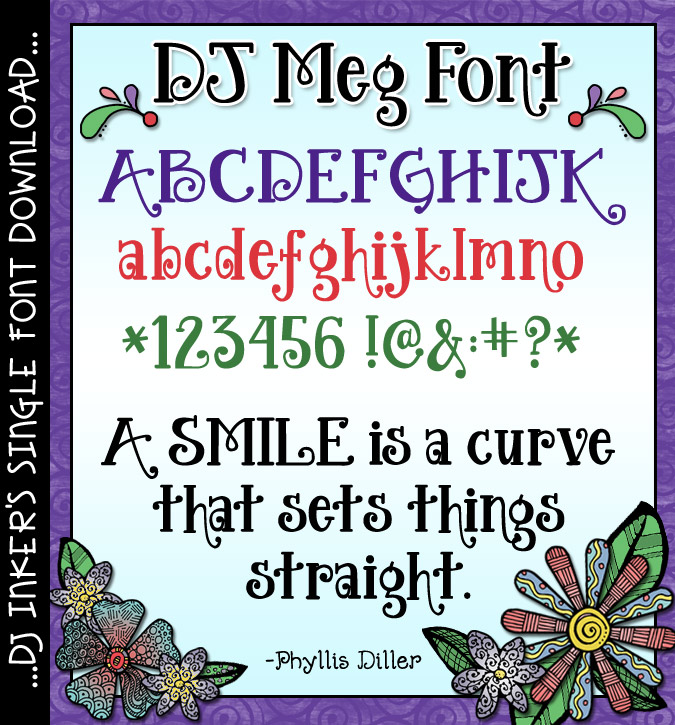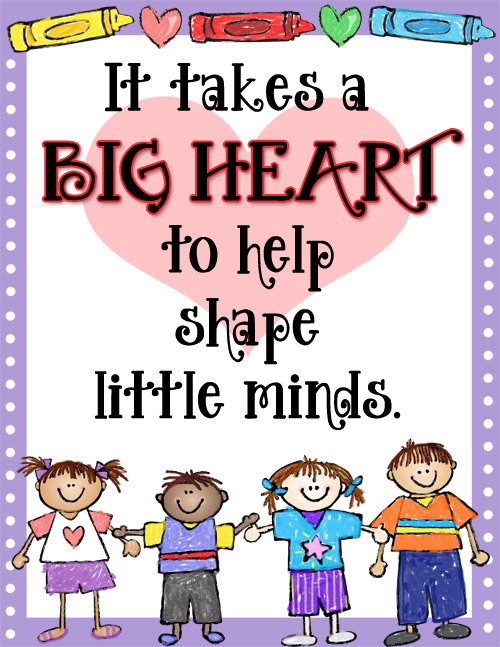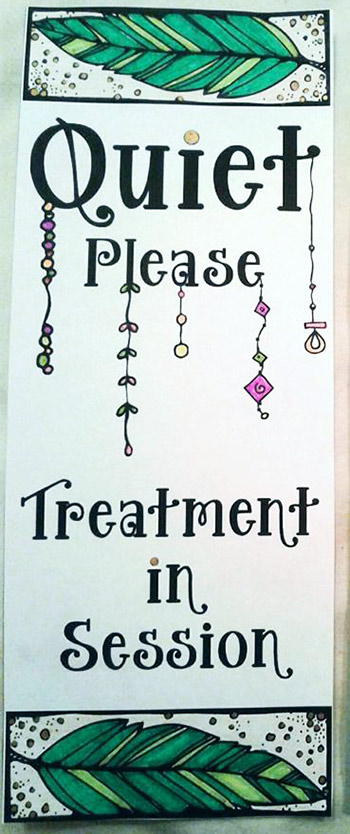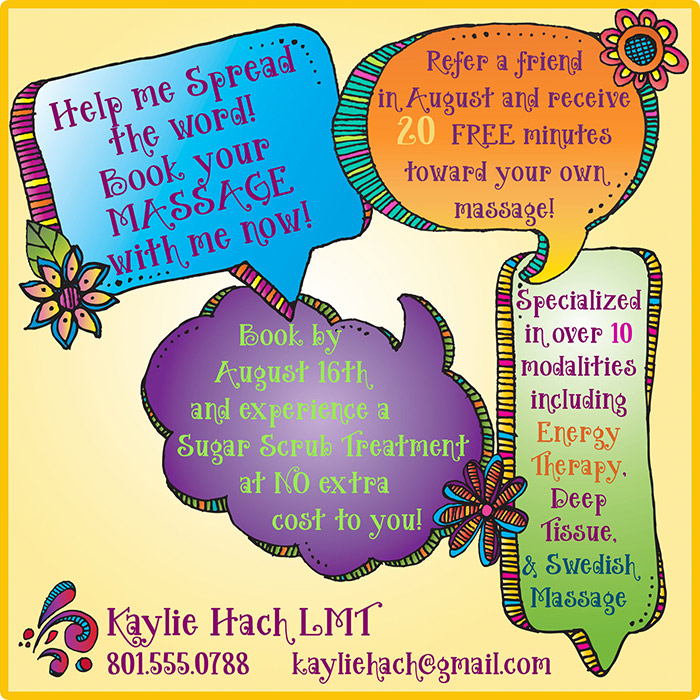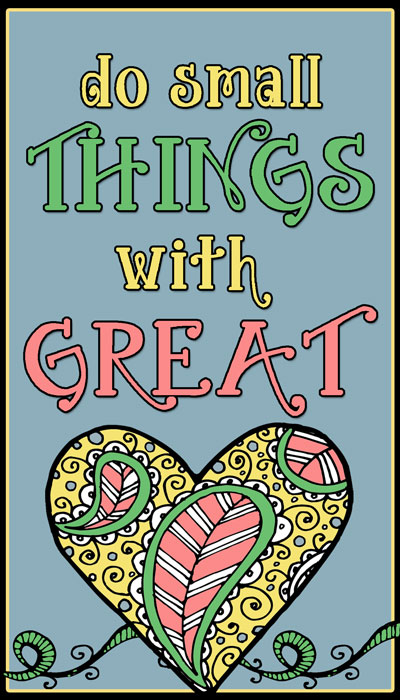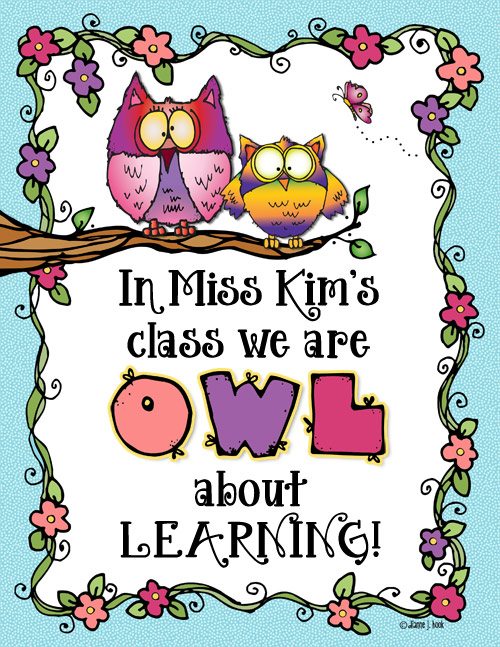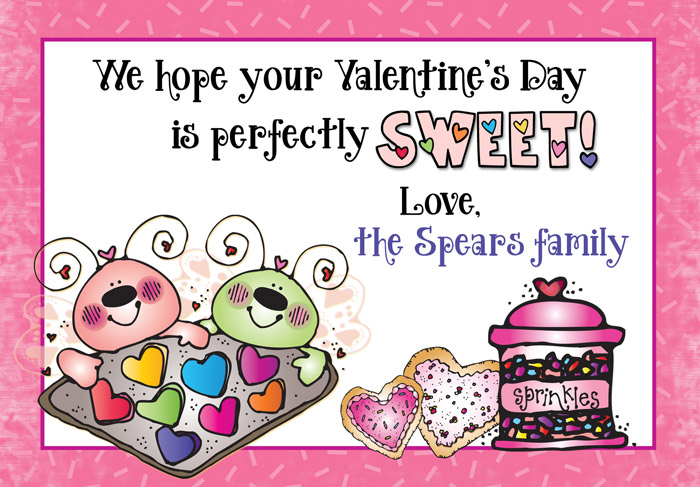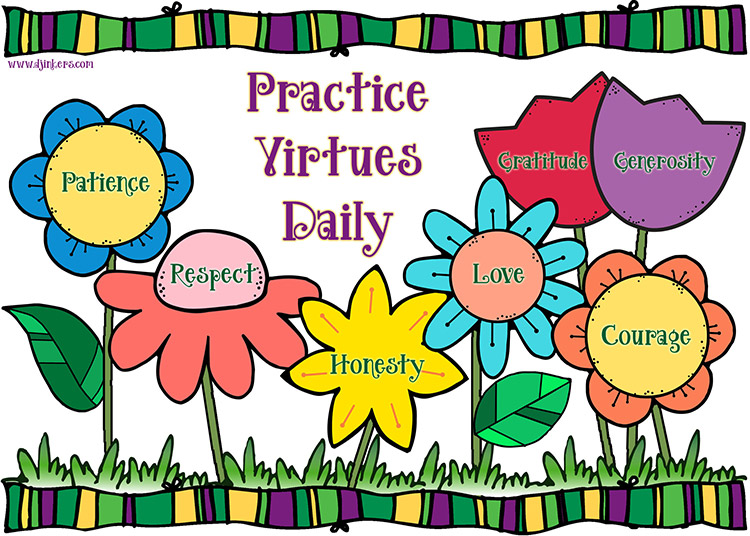
DJ Meg Font Download
If you're looking for a bold, swirly font with lots of style... then typing
with DJ Meg is sure to make you smile! Use this lovely lettering
to add sweet & sassy personality to your any project. Perfect for posters,
headlines, holidays, sweet notes, home crafting and more.